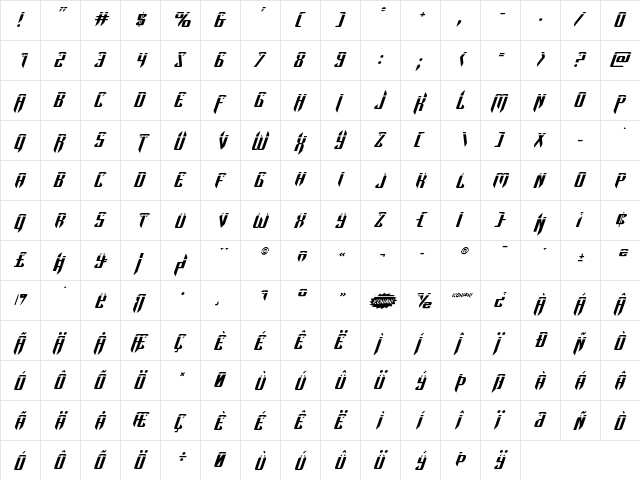
The Immortal Laser Italic Italic
Design Context for The Immortal Laser Italic Typeface
The Immortal Laser Italic is a composed and adaptable typeface that performs quietly and consistently across a wide range of design contexts. Its italic angle brings a sense of urgency and motion to the letterforms.